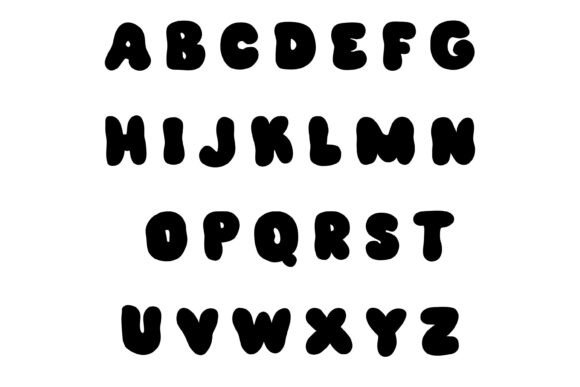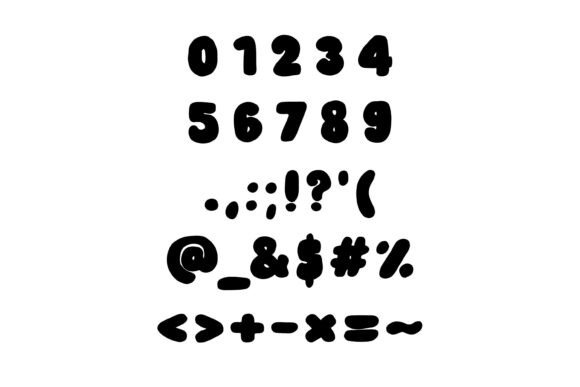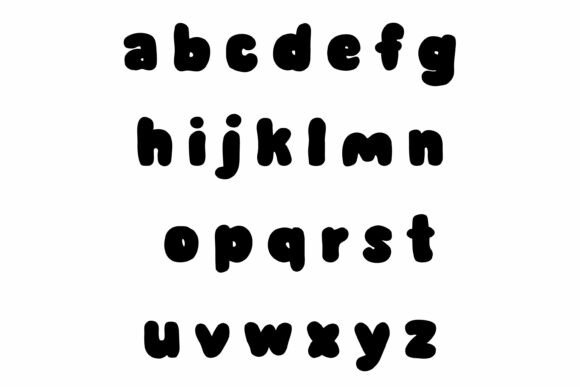
Introduction to Boldmove Font
BoldMove is a chunky, bubbly display font duo with two stylesβ€”Regular and Outer Line (cute doodle outline with stitch dots).
Perfect for stickers, kids logos, party invites, posters, YouTube thumbnails, and Cricut/Silhouette crafts The images show the full uppercase, lowercase, numbers, and symbols set for both styles.